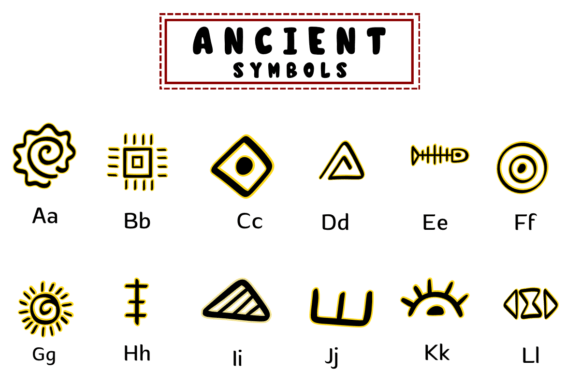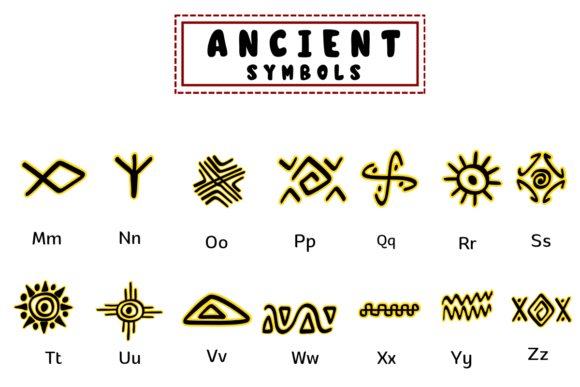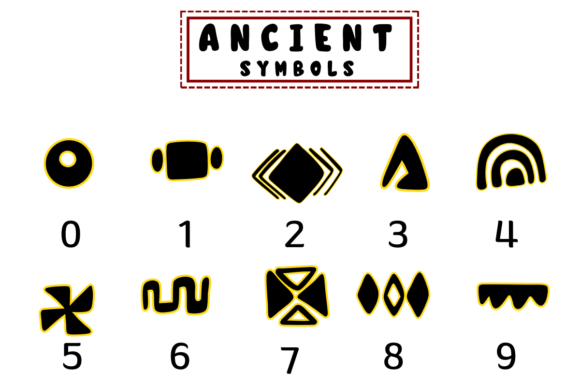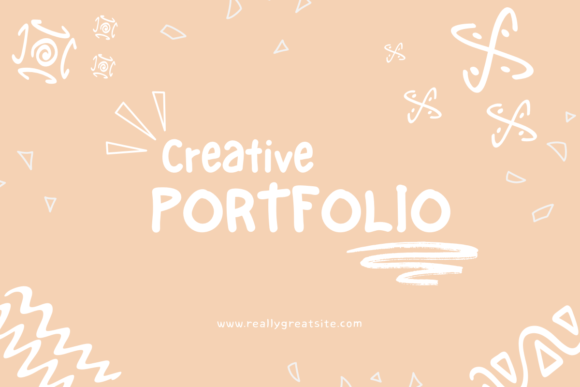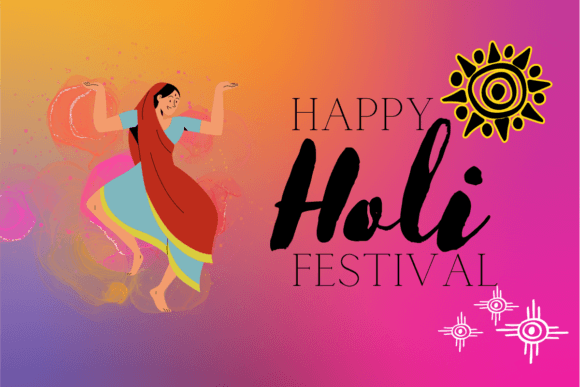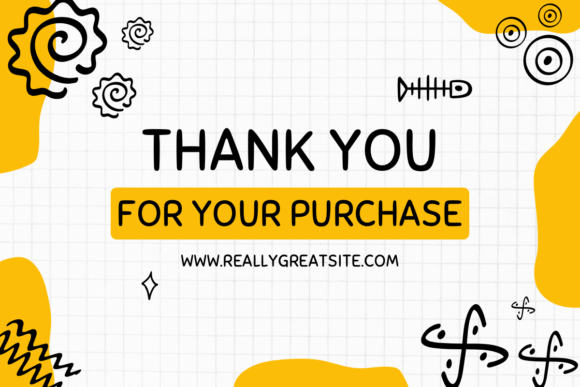
Unlocking the Secrets of Ancient Design
Have you ever been working on a project, and suddenly, the perfect symbol pops into your mind? It’s one of those moments where creativity strikes, and you can’t wait to bring your idea to life. For designers, these moments are the best, but sometimes, finding the right symbol can be a challenge. That’s where Ancient Symbols Font comes in – a dingbat font that brings a world of ancient designs right to your fingertips.
Ancient Symbols Font is a treasure trove of unique symbols, each one inspired by the intricate designs of ancient civilizations. With its vast collection of decorative icons, this font is a valuable asset for designers who want to add an extra layer of depth and meaning to their projects. Whether you’re working on a logo, a brochure, or a website, Ancient Symbols Font can help you create something truly special.
Ancient Symbols Font Key Features
- Character Set: This font features a vast collection of ancient symbols, including hieroglyphs, runes, and other historical scripts, making it ideal for designers and historians seeking authenticity.
- Unique Characteristics: The font’s unique design and historical accuracy make it stand out from other fonts, allowing users to add a touch of authenticity to their designs and projects.
Review of Ancient Symbols Font
I’ve had the chance to work with the Ancient Symbols Font, and overall, I’m quite impressed with its unique features. ✨ The font’s eclectic mix of ancient languages and symbols adds an extra layer of depth to any design. ✨ The detailed engravings and intricate patterns make it perfect for creating immersive and engaging visuals.
However, there are a few limitations to consider. ⚠️ The font’s complexity can make it challenging to use, especially for those who aren’t familiar with working with elaborate typography. ⚠️ Additionally, some of the symbols may be difficult to read or distinguish, particularly at smaller font sizes. ⚠️
- Unique blend of ancient languages and symbols
- Highly detailed engravings and intricate patterns
- Perfect for creating immersive and engaging visuals
- Complexity may be challenging for beginners
- Some symbols may be difficult to read or distinguish at smaller font sizes
Despite its limitations, the Ancient Symbols Font is a great choice for designers looking to add an extra layer of depth and history to their projects. With a bit of patience and practice, it’s definitely worth incorporating into your design arsenal.
Tips for Getting the Most Out of Ancient Symbols Font
Here are some tips for getting the most out of Ancient Symbols Font:
- Combine Ancient Symbols Font with other fonts to create a unique and visually appealing design.
- Use Ancient Symbols Font to add a touch of mysticism and ancient wisdom to your design.
Here are some common use cases for Ancient Symbols Font:
- Designing mystical or spiritual-themed graphics and logos.
- Creating ancient-inspired typography and word art.
- Adding a touch of mysticism and ancient wisdom to